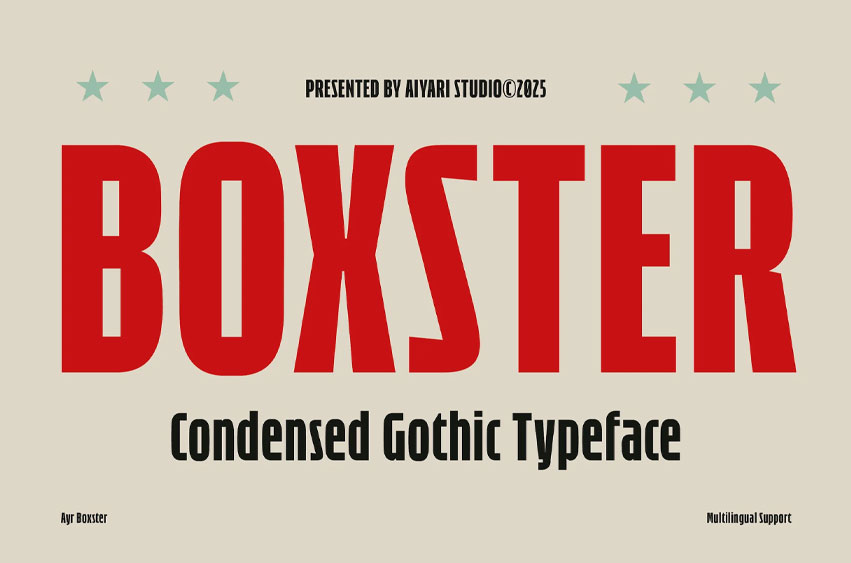
Boxster Font is a bold, condensed gothic typeface built for action, adrenaline, and attitude. It’s tall, narrow letterforms pack maximum visual impact while conserving space — ideal for tight layouts that still need to hit hard.
Inspired by vintage sports posters and varsity aesthetics, Boxster fuses gothic precision with modern aggression. Whether you’re designing for athletic events, sportswear branding, gym promotions, or bold poster campaigns, this typeface delivers heavyweight presence with professional finesse.